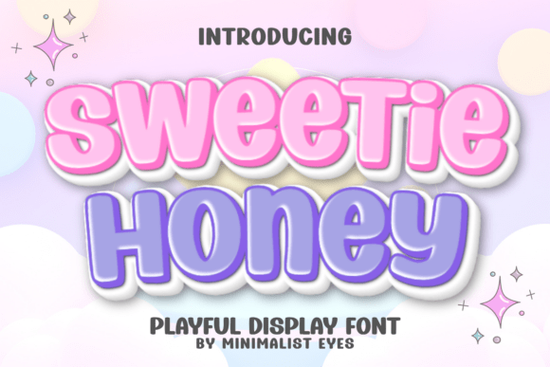
If you’ve been looking for a playful display font that feels warm and approachable, the Sweetie Honey Font might be exactly what you need. Its soft, bubbly shapes are designed to add a friendly, sweet touch to any project without losing readability. Whether you’re making invitations, stickers, or nursery wall art, this font keeps your text clear while still looking whimsical.
What makes Sweetie Honey different from other craft fonts?
Many display fonts are either too decorative to read or too plain to feel special. Sweetie Honey sits in a sweet spot: the letters have rounded, pillowy curves that mimic hand-drawn lettering, but the spacing and proportions are clean enough for cutting machines and print work. It’s especially popular for Cricut projects because the shapes don’t have thin hairlines that could break during cutting. You can use it for vinyl decals, laminated bookmarks, or even engraving on wood the letters hold their shape well.
To see how it compares to other styles, you might also look at a groovy cute font if you prefer a retro 70s vibe, or a harlow chunky font for a bolder, heavier look. Each font family serves a different mood, but Sweetie Honey stands out for its pure sweetness.
How can I use Sweetie Honey in my craft projects?
Here are some practical ways to put this font to work:
- Personalized stickers Names, monograms, or short quotes look adorable with the bubbly letterforms. Use it in a script-heavy layout or pair it with a simple sans serif for contrast.
- Birthday invitations The friendly curves make party details feel light and celebratory. Try it with pastel color schemes.
- Nursery decor Wall prints, growth charts, and name signs benefit from the gentle, non-intimidating shapes. It fits well in gender-neutral rooms.
- Cricut or Silhouette cut files Because the font is thick and even, you can weld letters together for a single-piece vinyl decal without worrying about tiny bridges.
- Print‑on‑demand products T‑shirts, mugs, and tote bags with short phrases like “sweet as honey” or “hello sunshine” sell well when the font feels handmade.
If you’re also working on a more elegant project, consider a beautiful Caroline font for a calligraphy feel but for casual, cheerful designs, Sweetie Honey is hard to beat.
Is Sweetie Honey easy to read at small sizes?
Yes, compared to many bubbly fonts, this one keeps good legibility even when scaled down. The counters (the spaces inside letters like ‘e’ and ‘a’) are generous, and the strokes don’t overlap awkwardly. That makes it a good choice for social media graphics, small labels, or product tags where you want the text to be readable but still charming.
That said, for serious body text or long paragraphs, you’d want a more neutral typeface. Sweetie Honey is a display font it shines in short headlines, single words, or titles up to about six words.
How does Sweetie Honey compare to other playful fonts like Hunter’s K‑Pop or vintage western styles?
Every font has a personality. Sweetie Honey leans toward cute, dessert-like sweetness. If you want a more energetic, modern feel, Hunter’s K‑Pop font has sharper edges and a trendy, stylized look. On the other hand, a vintage western font offers rugged, old-timey charm perfect for ranch‑themed invitations or rustic decor. Sweetie Honey is best when you want something purely soft and joyful.
Practical checklist for using Sweetie Honey in your next craft
- ☐ Test the font at your final size Scale it up and down in your software to see how the shapes hold.
- ☐ Weld letters for vinyl cuts In Cricut Design Space, use the weld tool to join touching letters so they cut as one piece.
- ☐ Pair it with a simple sans serif Let Sweetie Honey be the star for names or headings, and use a plain font for extra info like dates or lists.
- ☐ Use contrasting colors Light backgrounds with bright or dark lettering make the bubbly shapes pop.
- ☐ Check letter spacing Sometimes display fonts need slight tracking adjustments (add a little space) for better readability.
- ☐ Try it on different materials Printed paper, adhesive vinyl, heat transfer vinyl, and even fabric (with proper stabilizer) all work well.
Once you’ve downloaded the Sweetie Honey font, open up your design software and start playing with short words like “love,” “joy,” or a child’s name. You’ll quickly see how its cheerful curves can turn a simple project into something truly delightful.